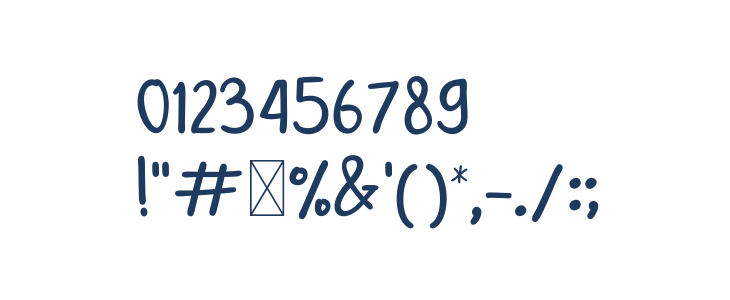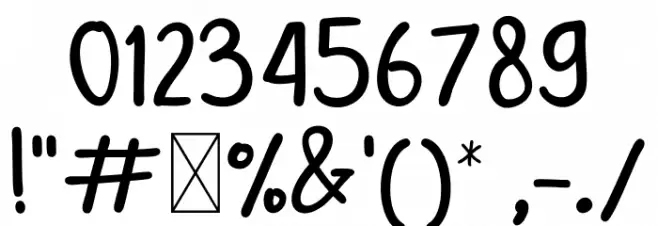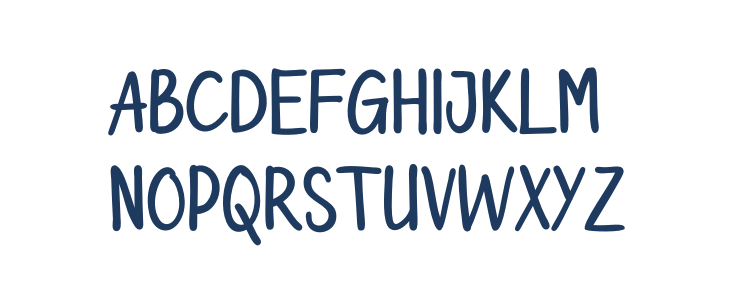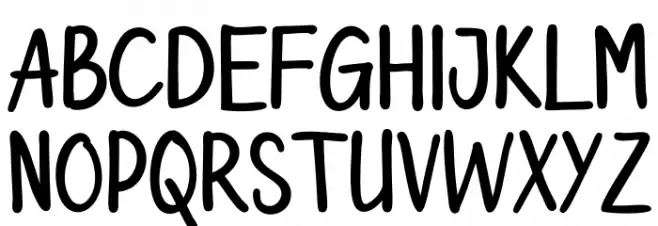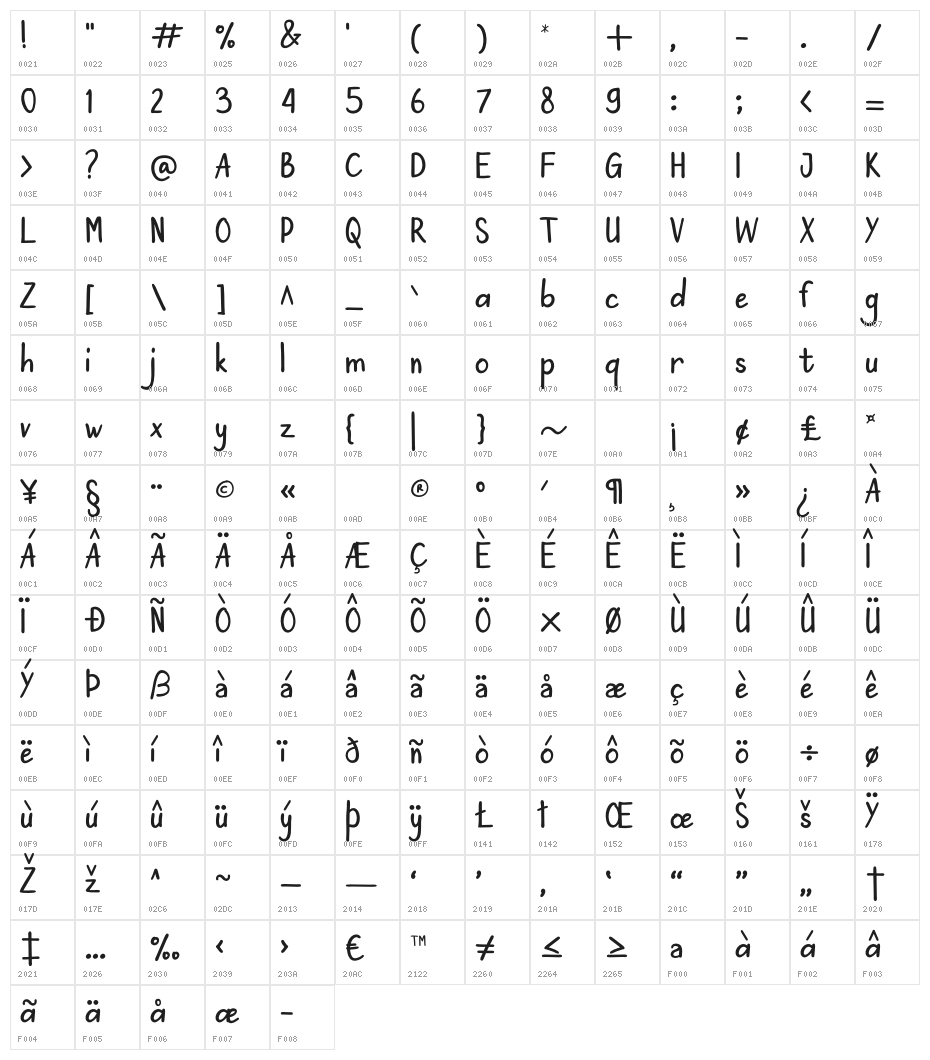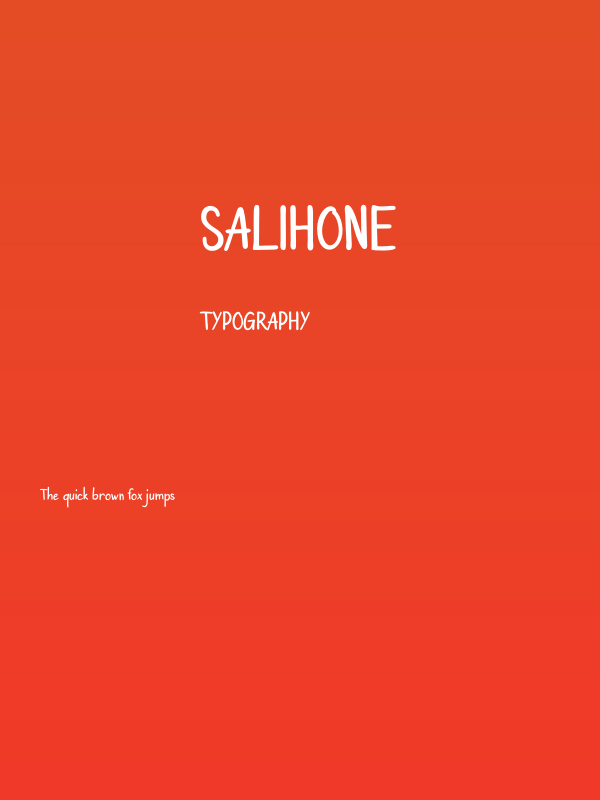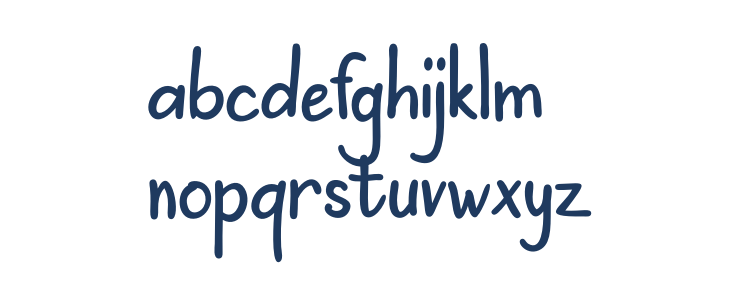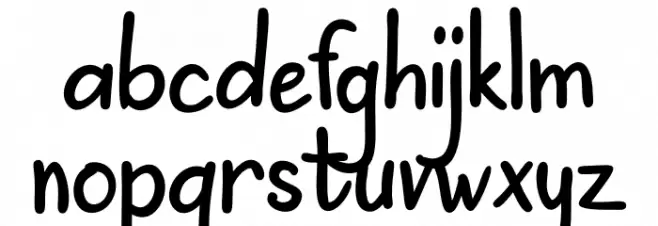
Salihone Font
Salihone Description
A playful, handwritten sans-serif font with rounded terminals and consistent stroke width. The characters are slightly irregular, giving a casual and friendly appearance. The lowercase letters have a tall x-height, and the ascenders and descenders are pronounced, contributing to a whimsical style.
| Overall Style | Playful, Casual, Friendly |
| Use Case | Headlines, Short text, Posters, Informal branding |
| Proposed Projects | Children's books, greeting cards, informal branding, educational materials, posters. |